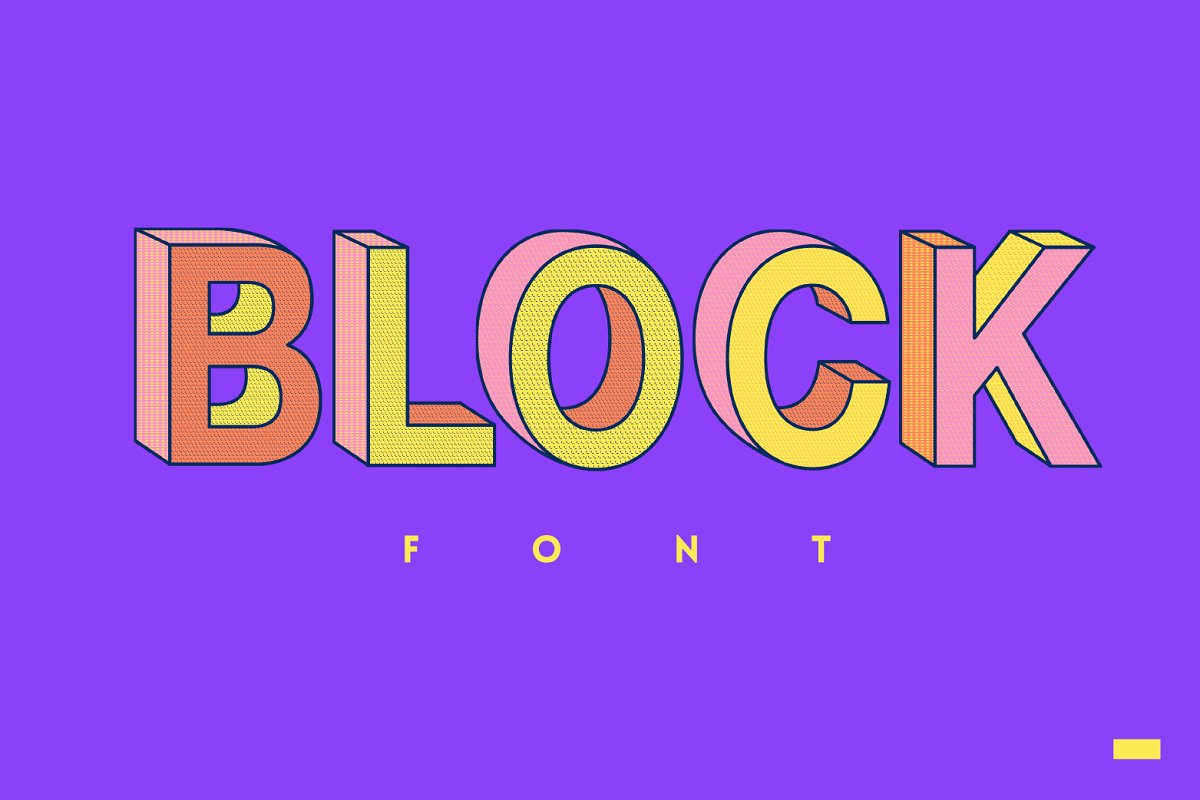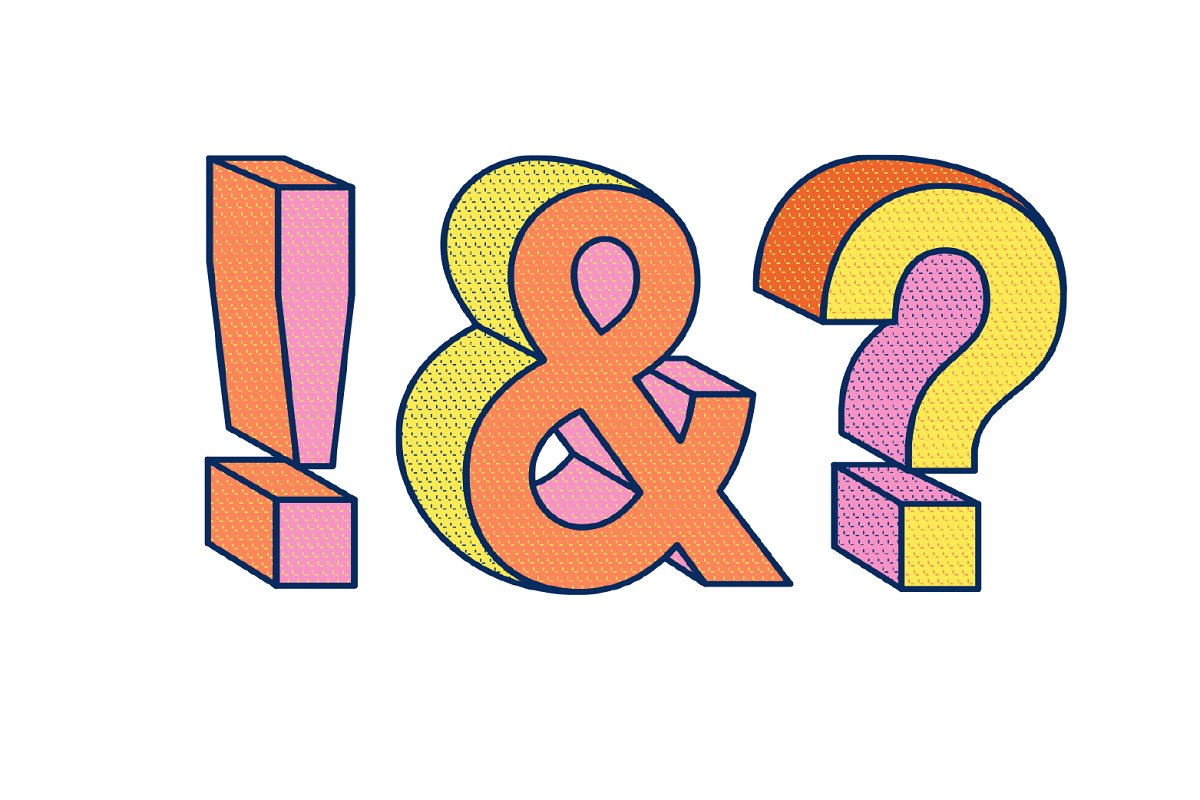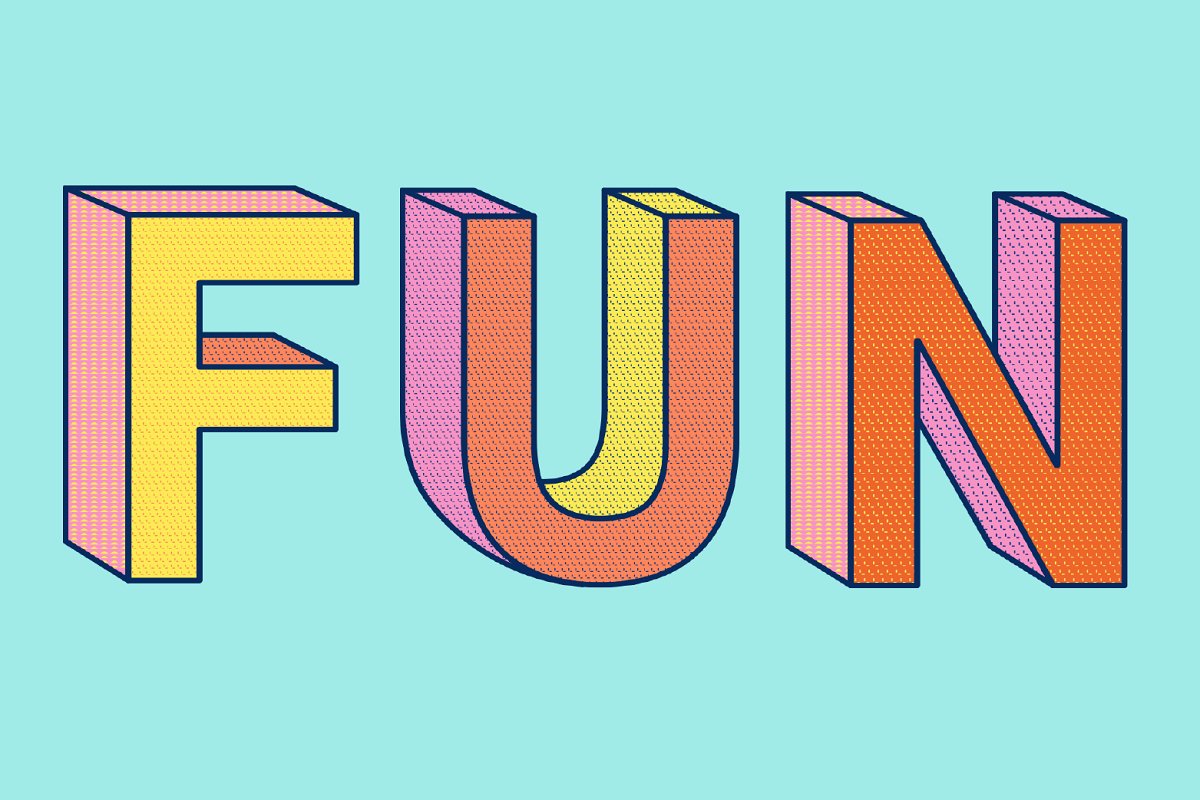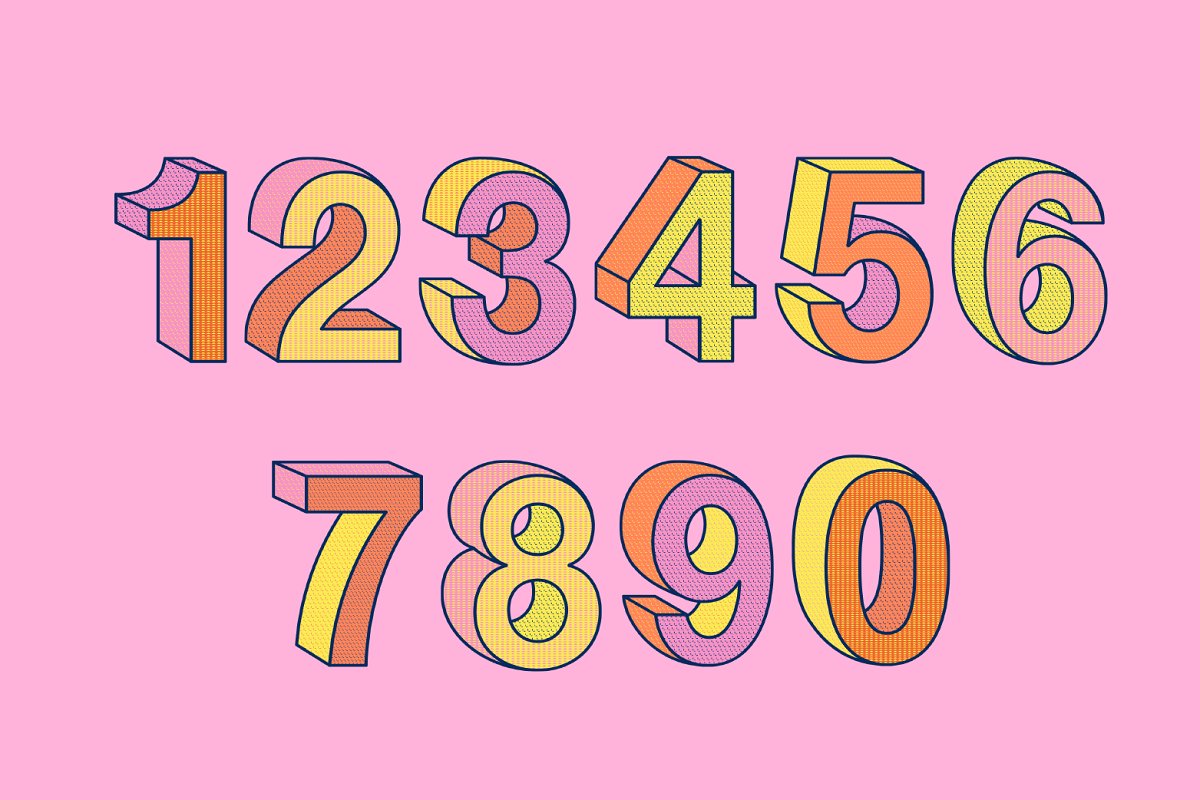
About the Block Font
Fun typography in perspective, ideal to give your designs colors and fun!Includes: The illustrator file with each letter in vector and PNG, And a OpenType file which means this font will show up only in apps that are compatible with color bitmap fonts, like Adobe Photoshop CC 2017, 0, For more information to install this font: https://helpx, adobe